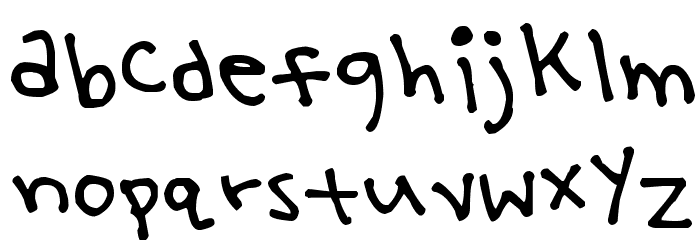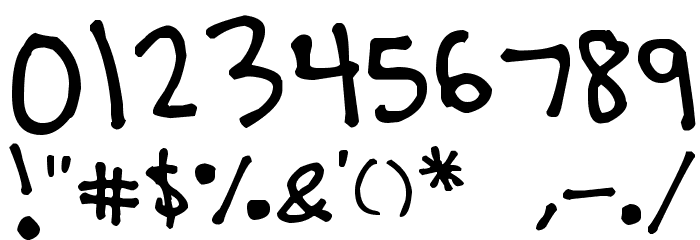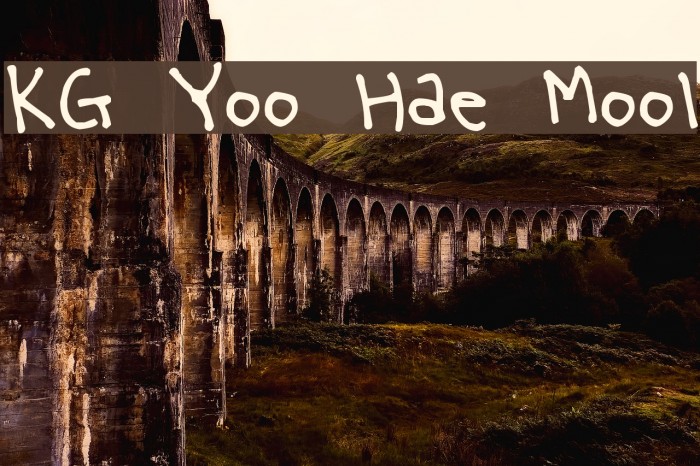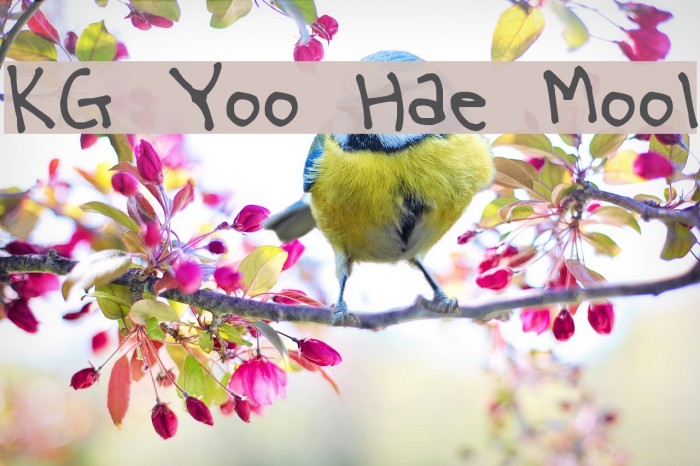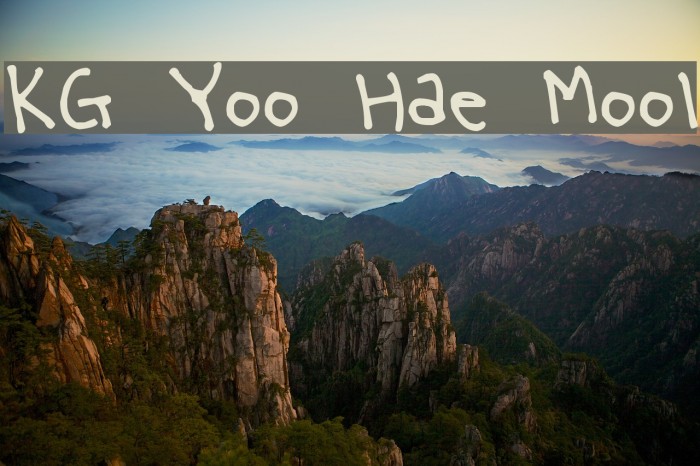
KG Yoo Hae Mool Font
This font features a playful and informal handwritten style, characterized by its irregular and organic letterforms. The strokes are uneven, giving it a casual and approachable feel. Each character appears as if it was drawn with a marker, with slight variations in thickness that add to its charm. The font maintains a consistent baseline, but the heights of the letters vary, enhancing its whimsical nature. It includes a full set of uppercase and lowercase letters, numerals, and a variety of special characters, making it versatile for different uses.
A playful, informal handwritten font with irregular, marker-like strokes.
- Proposed Projects: Ideal for children's books, greeting cards, playful branding, and casual invitations.
- Overall Style: Casual
- Use Case: Headlines, Informal text, Creative projects